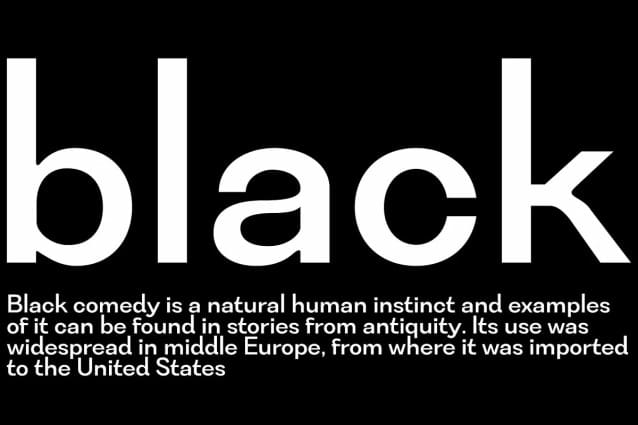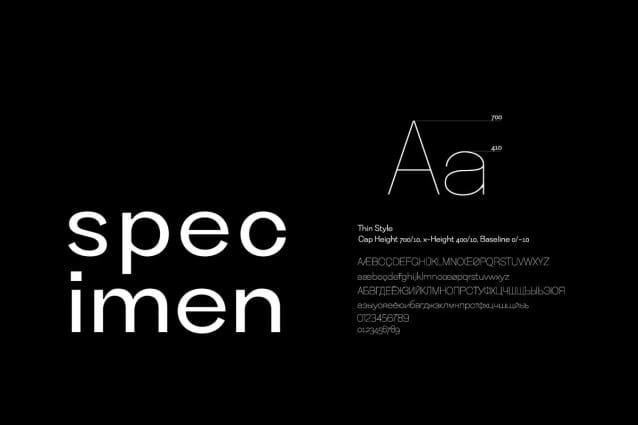
Bocfer Font Family
Bocfer Font Family, this typeface is a special style for designers who prefer a sense of space and differentiation in the layout system. It applies a design concept that continues the modern and contemporary grotesque lineage. And, It adopts a somewhat low x-height system and has a classic and sophisticated balance. As the height of lowercase letters is lowered, more differentiated and rhythmic typography can be realized, and it showcases a wide range of coverage from offline publishing to display areas. The elaborately optimized kerning system is a good choice for designers who prefer more professional logos and editorial designs.